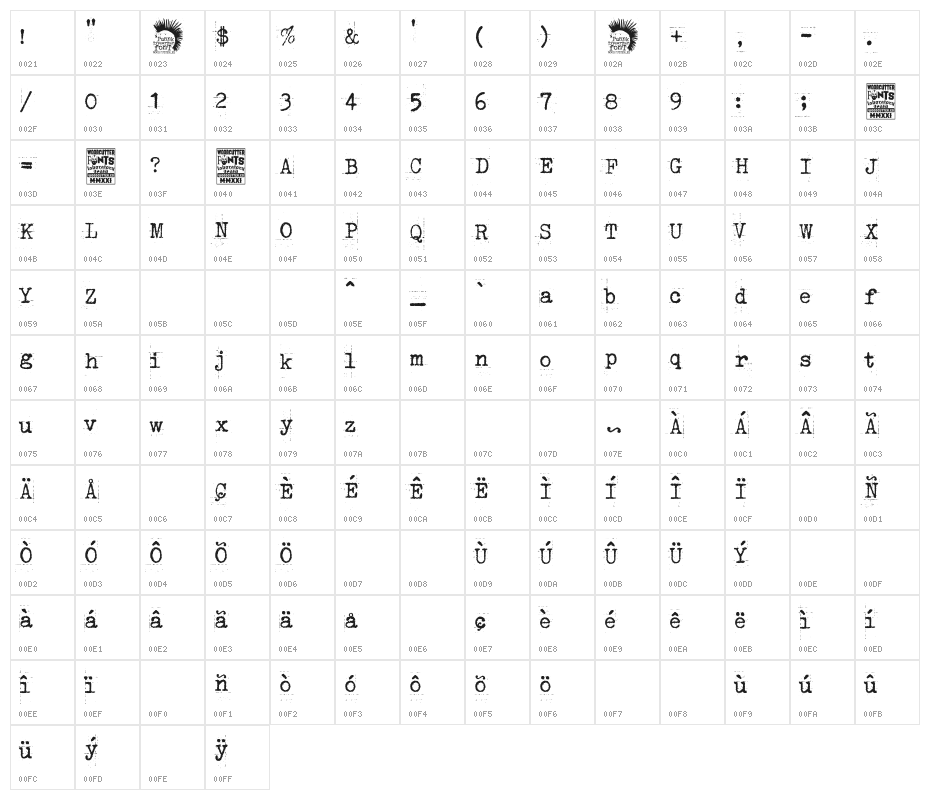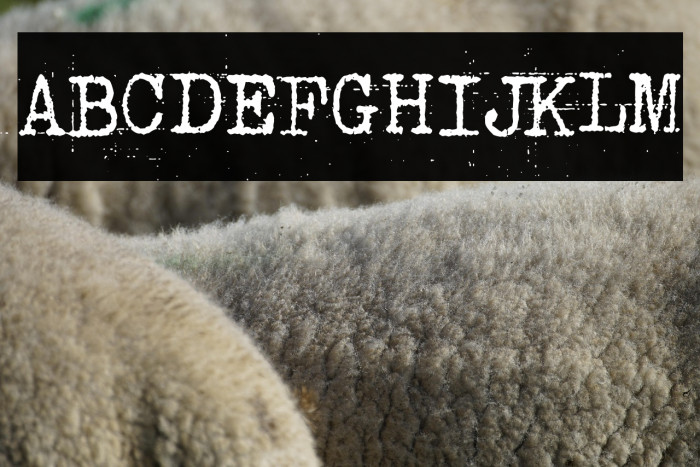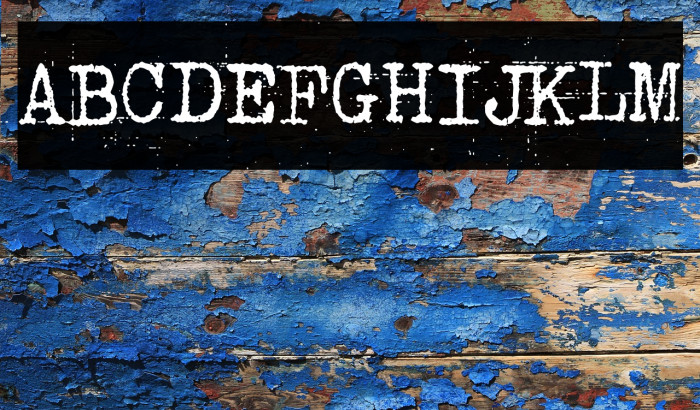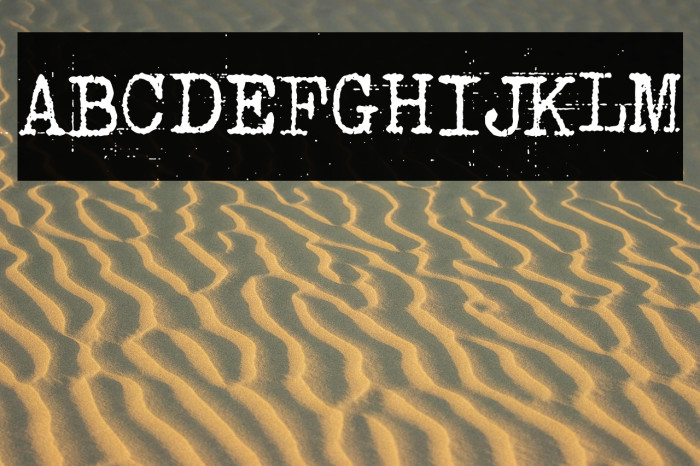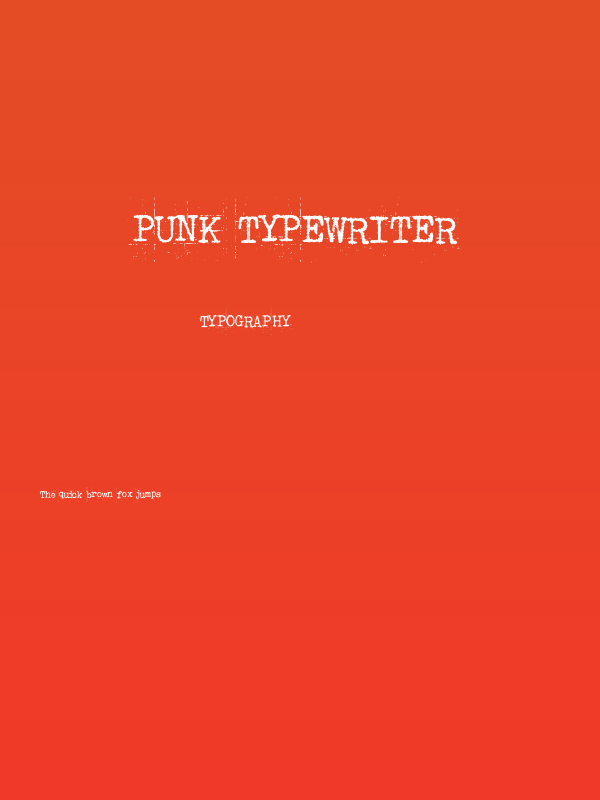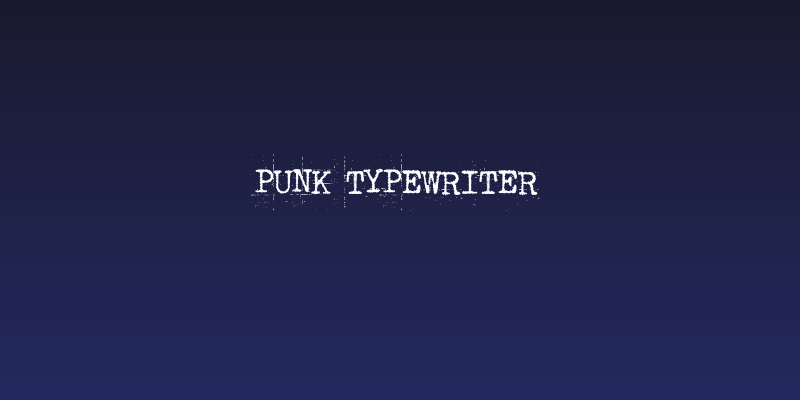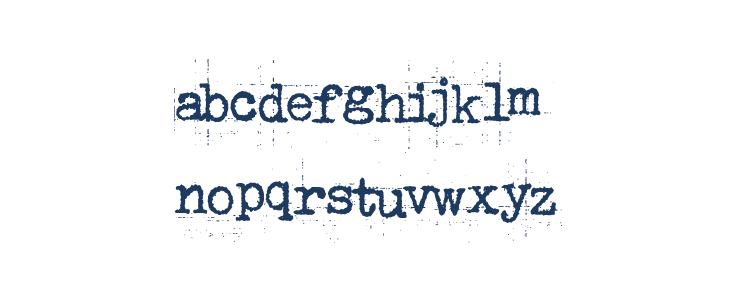
Punk Typewriter Font
Punk Typewriter Description
This font exudes a gritty, distressed aesthetic reminiscent of vintage typewriters with a punk twist. The characters are bold and slightly irregular, giving them a hand-crafted feel. The texture is rough, with a worn, ink-splotched appearance that adds to its rebellious charm. Each letter is distinct, with a unique pattern of imperfections that enhance its raw, edgy style. The uppercase and lowercase letters maintain a consistent height, while the numerals and special characters follow the same rugged theme. This font is perfect for projects that require a bold statement with a touch of nostalgia and attitude.
| Overall Style | Vintage, Punk |
| Proposed Projects | Ideal for album covers, posters, zines, and any design needing a rebellious, vintage feel. |